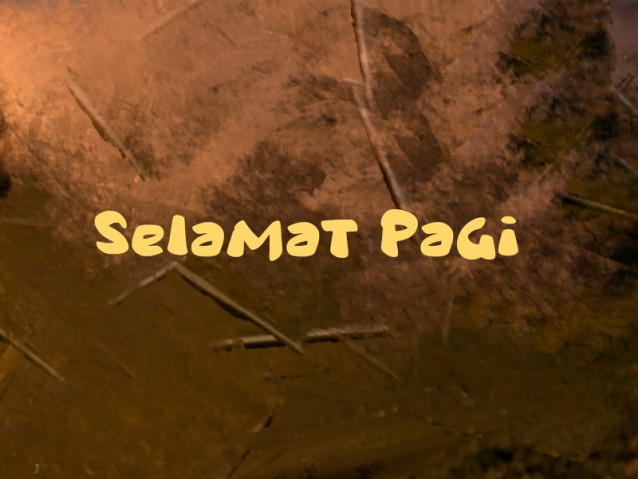
Selamat Pagi Font
Selamat Pagi Font is a simple and modern display font suitable for quotes, logos, headings, titles, and many more. Use it on any of your creative projects, and your designs will become outstanding!